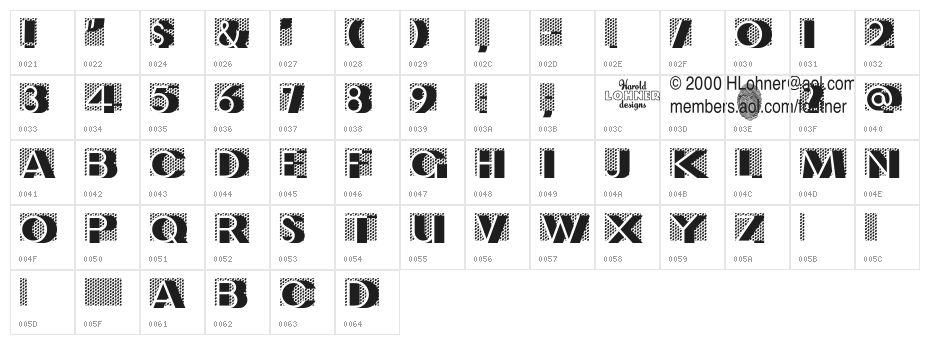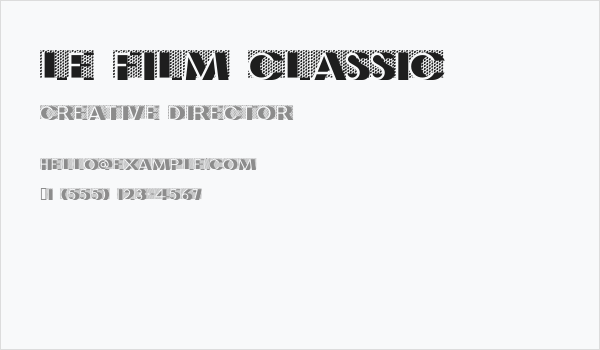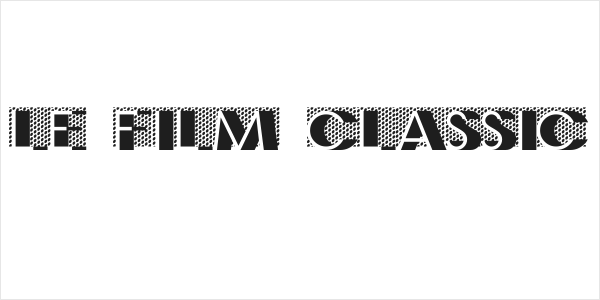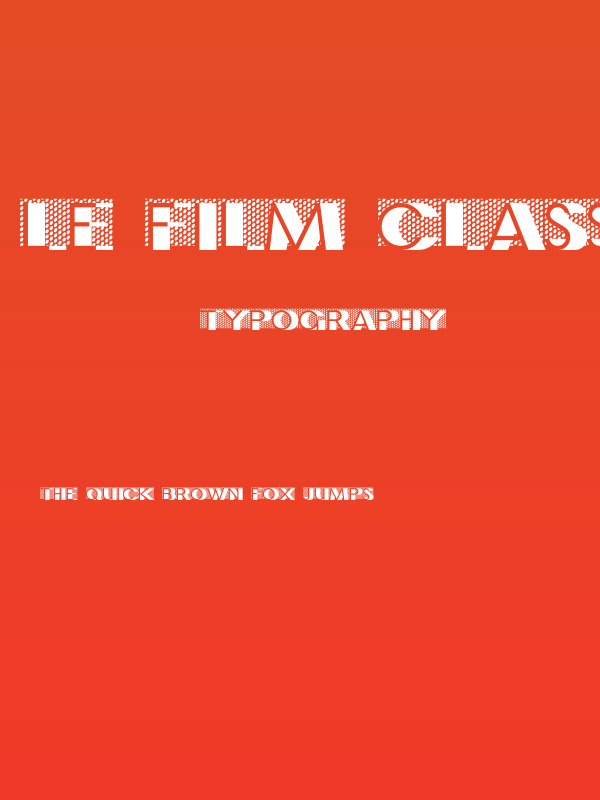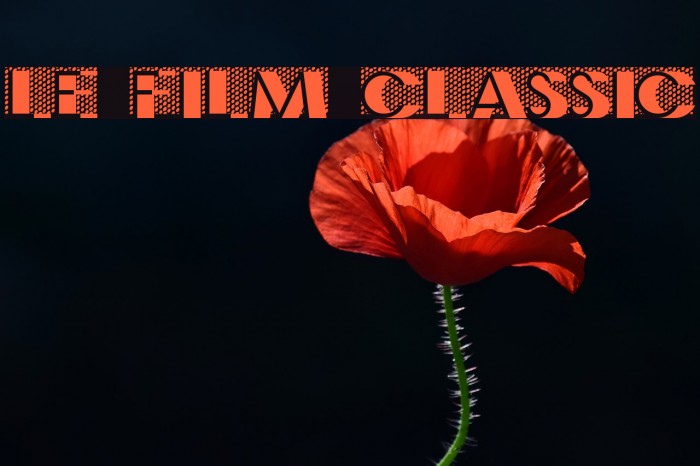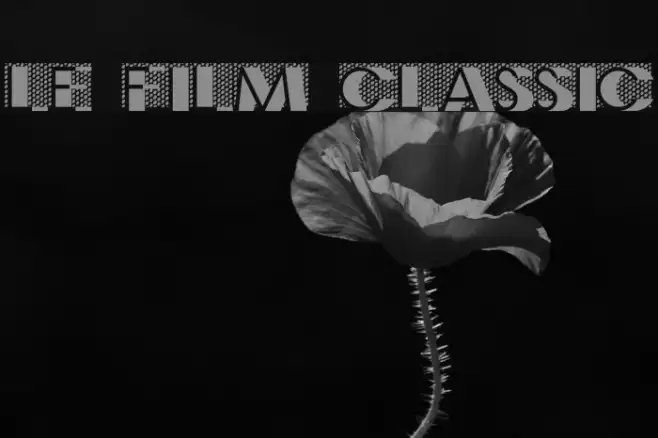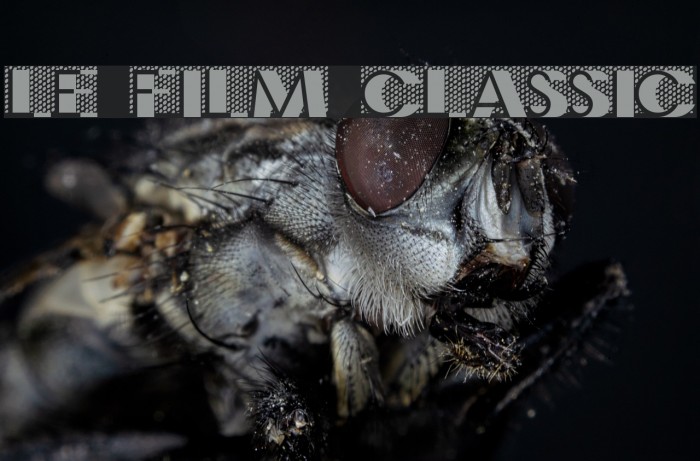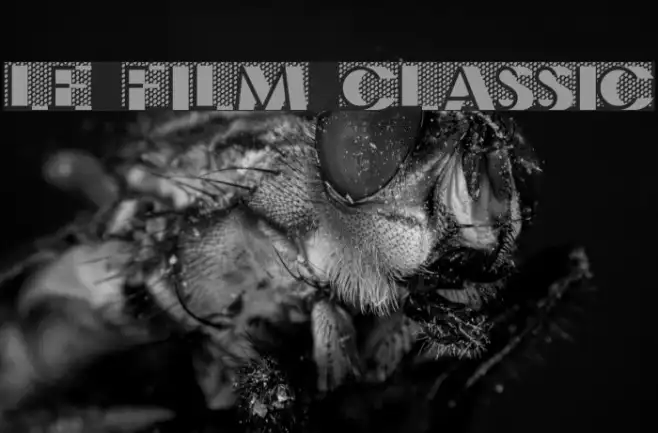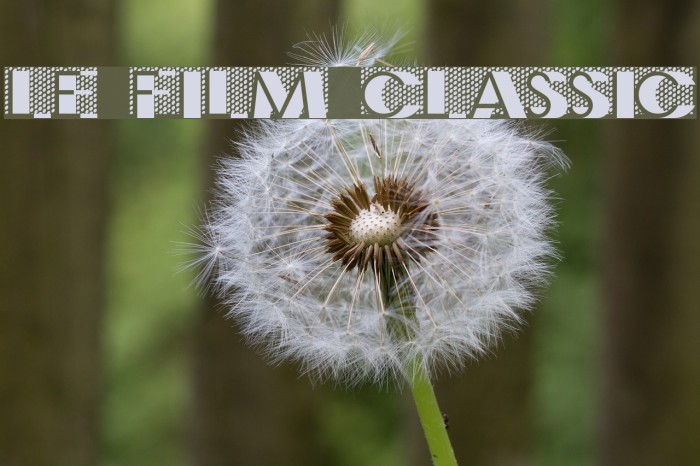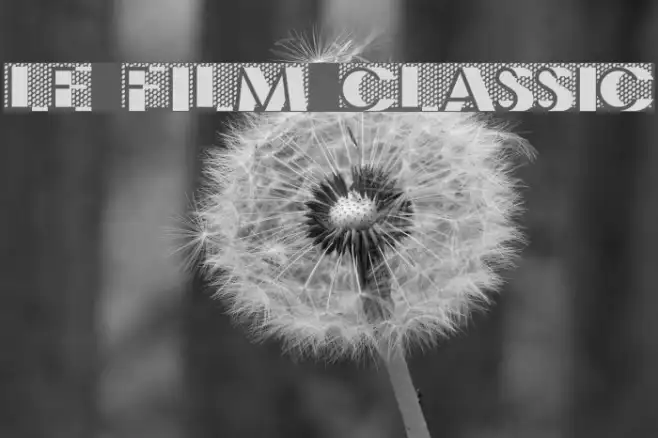
Le Film Classic Font
Le Film Classic Description
This font features a bold, decorative style with a unique halftone pattern filling each character. The uppercase letters are prominent and eye-catching, making them ideal for impactful headlines. The lowercase letters maintain the same boldness, ensuring consistency throughout. Numbers and special characters are designed with the same attention to detail, providing a cohesive look. The halftone effect gives the font a vintage, retro feel reminiscent of classic film posters or comic book art. This style is both playful and sophisticated, making it versatile for various creative projects.
| Overall Style | Vintage |
| Proposed Projects | Perfect for movie posters, comic book covers, retro advertisements, and vintage-themed branding. |